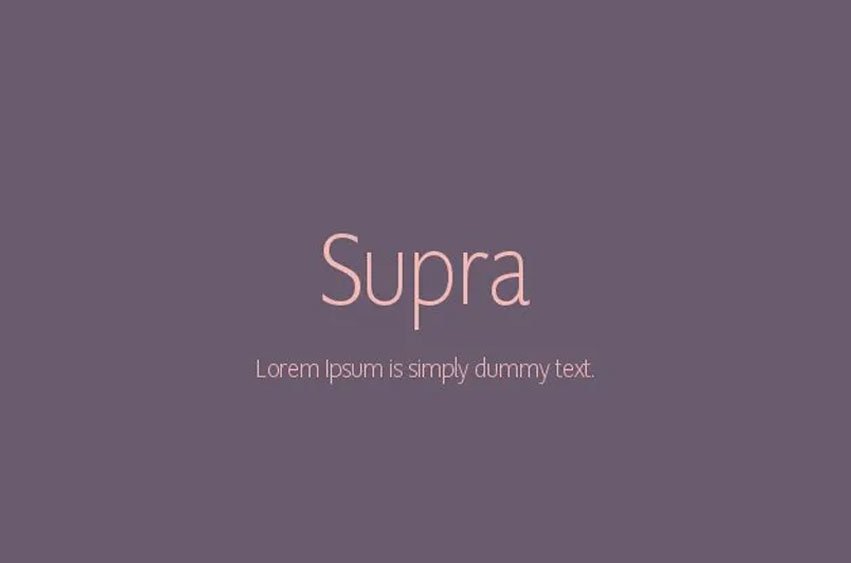
Supra Font Family is a design of Gert Wiescher. Supra is most useful for all kinds of jobs and will never let you down in terms of elegance and usability.
Supra typeface including 5 trọng lượng(XLight-Compressed, XLight-Condensed, XLight-Extended, XLight-Mezzo and XLight-Normal).